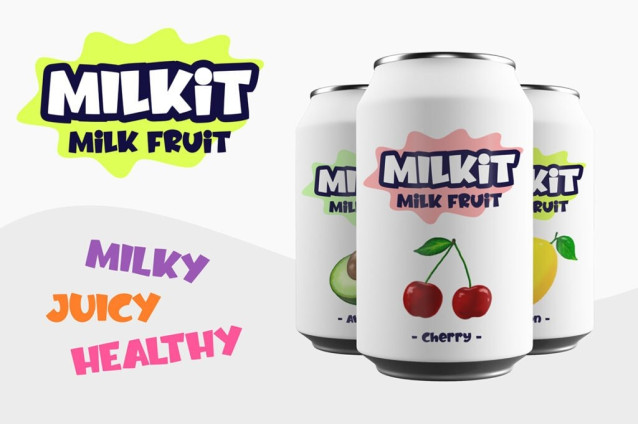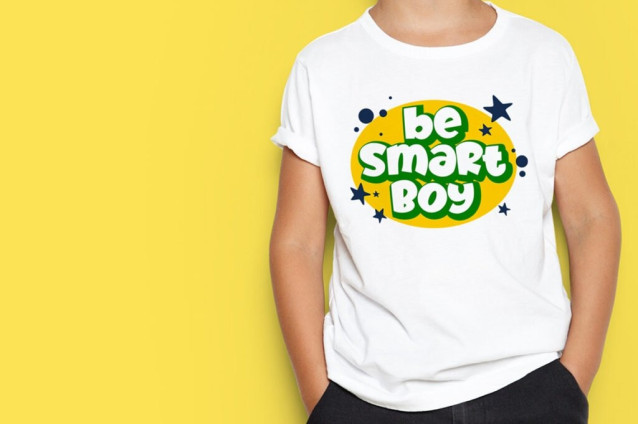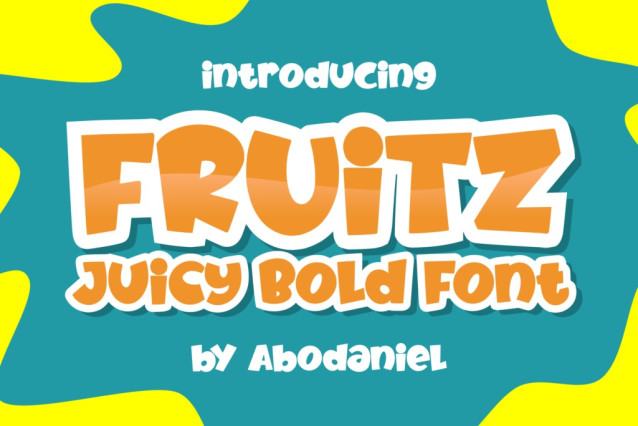
Fruitz Display Font
Fruitz Display Font – Juicy Bold Font- These fonts are great for apparel, branding, logo, magazine, quotes, packaging, advertising, and more, that need a cheerful feel.
It came with uppercase, lowercase, punctuations, symbols & numerals. Also, support multilingual and already PUA encoded. Fruit Doodles are completed by these font families.